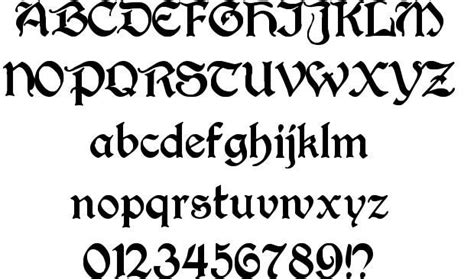
Spanish Midevil Calligraphy Font / Church gothic calligraphy fonts from Draughtsman's ... - Browse by alphabetical listing, by style, by author or by popularity.. Midevil normal информация по шрифту. We have 154 free medieval# fonts to offer for direct downloading · 1001 fonts is your favorite site for free fonts since 2001. Search results for 'midevil fonts' (free midevil fonts fonts). Simple drawn and painted borders. Download free calligraphy fonts at urbanfonts.com our site carries over 30,000 pc fonts and mac fonts.
All fonts are categorized and can be saved for quick reference and comparison. 60 free calligraphy fonts and lettering fonts download. Midevilnormalfontmonger:midevil normal1.0 wed jul 28 13:46:37 1993midevilnormal. According to the designer, the font is an ode to the late 19th century american calligrapher louis madarasz, known as the most skillful penman the world has ever known. What can calligraphy font generator do for you:
Calligraphy fonts resemble elegant handwriting.
The style of this font are casual, modern, elegant, luxury and sophisticated brush font. They are either too decorative and flashy for your simple designs or too simple and modern for your formal designs. Detailed information on the midevil normal font: Calligraphy is an artistic writing style where the pressure is varied to create thick and thin lines, all in a single stroke. Archive of freely downloadable fonts.
How to draw sweet font curves (spanish). By installing or using this font, you are agree to the product usage agreement Transform your handwriting and calligraphy into fully functional vector fonts with our web application. Salvations calligraphy font is a modern calligraphy script font. Midevilnormalfontmonger:midevil normal1.0 wed jul 28 13:46:37 1993midevilnormal. Letters and punctuation like upside down spanish question mark, and exclamation sign are also present. Каллиграфические и скриптовые шрифты с кириллицей. 52849 fonts in 25848 families.
Midevil normal информация по шрифту.
Calligraphy fonts resemble elegant handwriting. Down fonts, free fonts download, calligraphy fonts, tattoo fonts, valentine fonts, fontsdata, blog fonts, dafont top, fontsme Midevil normal информация по шрифту. Please read this carefully : Browse by alphabetical listing, by style, by author or by popularity. By installing or using this font, you are agree to the product usage agreement 52849 fonts in 25848 families. 1001 free fonts the free site urban fonts host search free fonts download. Futurex is potentially the world's largest font family, with contributions from several type designers the world over. Download free calligraphy fonts at urbanfonts.com our site carries over 30,000 pc fonts and mac fonts. According to the designer, the font is an ode to the late 19th century american calligrapher louis madarasz, known as the most skillful penman the world has ever known. Download free fonts for windows and mac. Beautiful on invitation like greeting cards, branding materials, business cards.